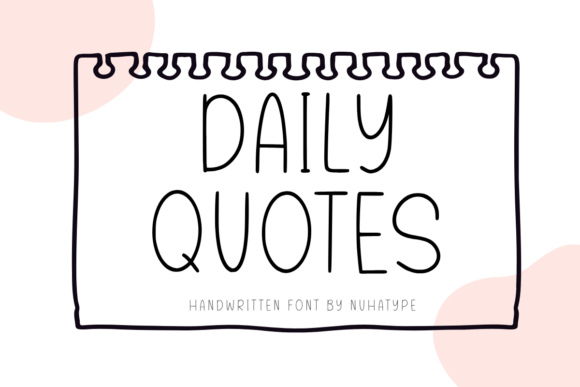
Discover the Elegance of Daily Quotes Font: Elevate Your Designs with a Touch of Simplicity
In the world of digital design, fonts play a crucial role in conveying messages, evoking emotions, and creating a lasting impression. Among the numerous font styles available, the Daily Quotes font stands out for its elegantly minimalist and thin sans serif design. This beautiful font mirrors the charm of natural handwriting, making it an excellent choice for various creative projects. In this article, we’ll explore the features, benefits, and applications of the Daily Quotes font, and how it can elevate your designs to new heights.
What is Daily Quotes Font?
Daily Quotes is a thoughtfully crafted font that embodies simplicity and elegance. Its thin sans serif design gives it a unique and sophisticated look, reminiscent of natural handwriting. This font is perfect for designers, crafters, and artists seeking to add a touch of refinement to their work. Whether you’re creating planners, journals, quotes, or other designs, Daily Quotes font is an excellent choice.
Key Features of Daily Quotes Font
• Elegantly Minimalist Design: Daily Quotes boasts a simple, yet sophisticated design that adds a touch of elegance to any project.
• Thin Sans Serif Font: The font’s thin sans serif style gives it a clean and modern look, perfect for designs that require a subtle touch.
• Mirrors Natural Handwriting: The font’s unique design mimics the charm of natural handwriting, making it ideal for projects that require a personal touch.
Applications of Daily Quotes Font
Daily Quotes font is an incredibly versatile font that can be used in a wide range of applications. Here are some of the most popular uses of this beautiful font:
Popular Applications of Daily Quotes Font
• Planners and Journals: Add a touch of elegance to your planners and journals with the Daily Quotes font.
• Interior KDP and Cricut Creations: Use the font to create beautiful interior designs for KDP and Cricut projects.
• Stickers and Labels: The font’s simple design makes it perfect for creating stickers and labels for various applications.
• Inspiring Quotes: Use the Daily Quotes font to create inspiring and motivational quotes for social media, posters, or other designs.
• Tumblers, Mugs, and Tote Bags: Add a touch of sophistication to your tumblers, mugs, and tote bags with the Daily Quotes font.
Benefits of Using Daily Quotes Font
The Daily Quotes font offers numerous benefits to designers, crafters, and artists. Here are some of the advantages of using this beautiful font:
Benefits of Using Daily Quotes Font
• Unique and Sophisticated Look: The font’s elegant design gives your projects a unique and sophisticated look that sets them apart.
• Easy to Read: The font’s simple design makes it easy to read, even at small sizes.
• Versatile: The Daily Quotes font can be used in a wide range of applications, from digital designs to print projects.
• Time-Saving: The font’s simple design makes it easy to use and saves you time when working on projects.
Tips for Using Daily Quotes Font
To get the most out of the Daily Quotes font, here are some tips to keep in mind:
Tips for Using Daily Quotes Font
• Use it with Simple Designs: The Daily Quotes font works best with simple designs, so avoid using it with complex or busy backgrounds.
• Experiment with Colors: The font’s simple design makes it easy to use with different colors, so experiment with various color schemes to find the one that works best for your project.
• Pair it with Other Fonts: The Daily Quotes font can be paired with other fonts to create a unique look, so experiment with different font combinations to find the one that works best for your project.
In conclusion, the Daily Quotes font is a beautiful and versatile font that can elevate your designs to new heights. Its elegantly minimalist design, thin sans serif style, and unique charm make it perfect for a wide range of applications. Whether you’re a designer, crafter, or artist, the Daily Quotes font is an excellent choice for adding a touch of sophistication and elegance to your projects.